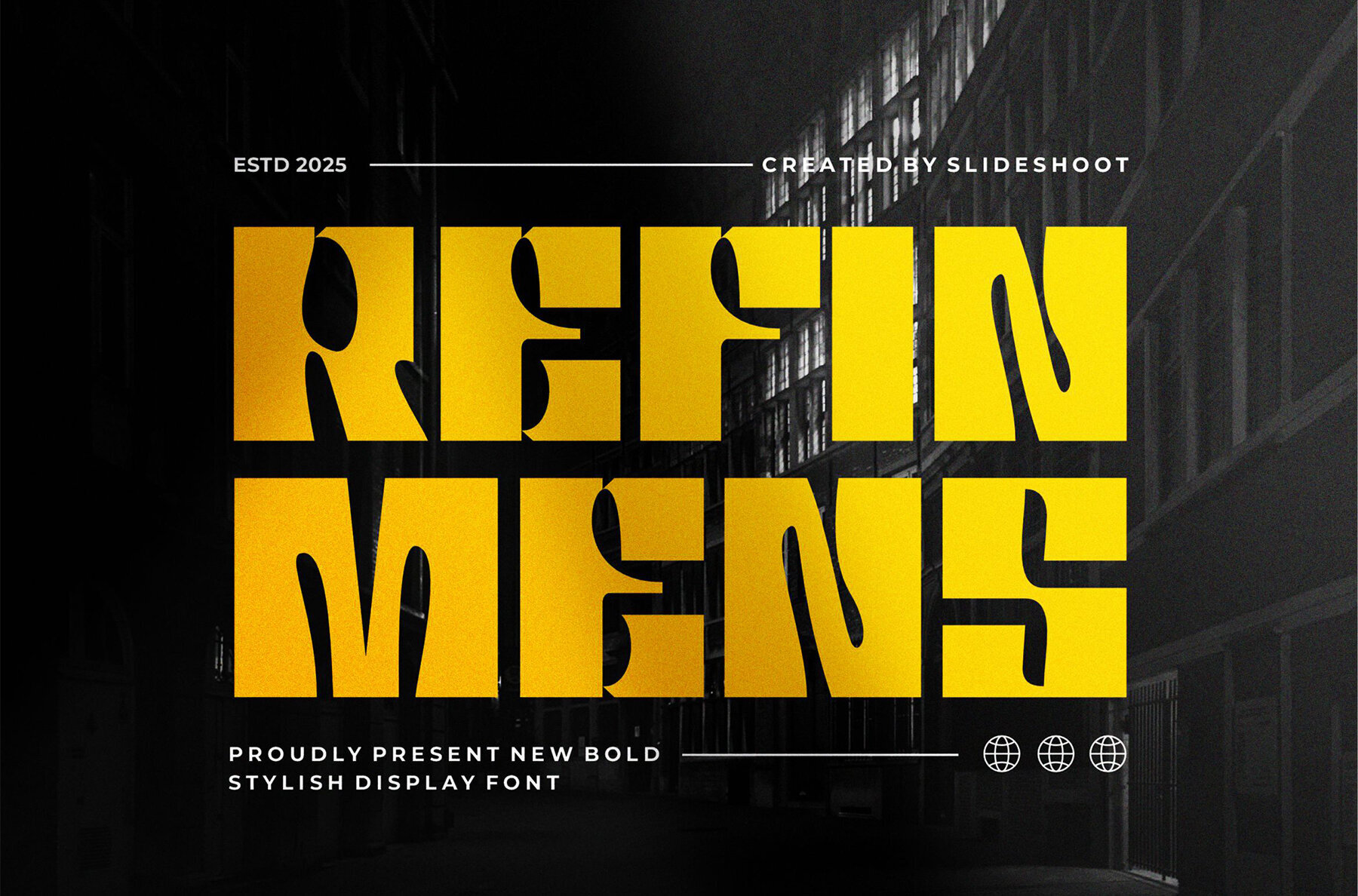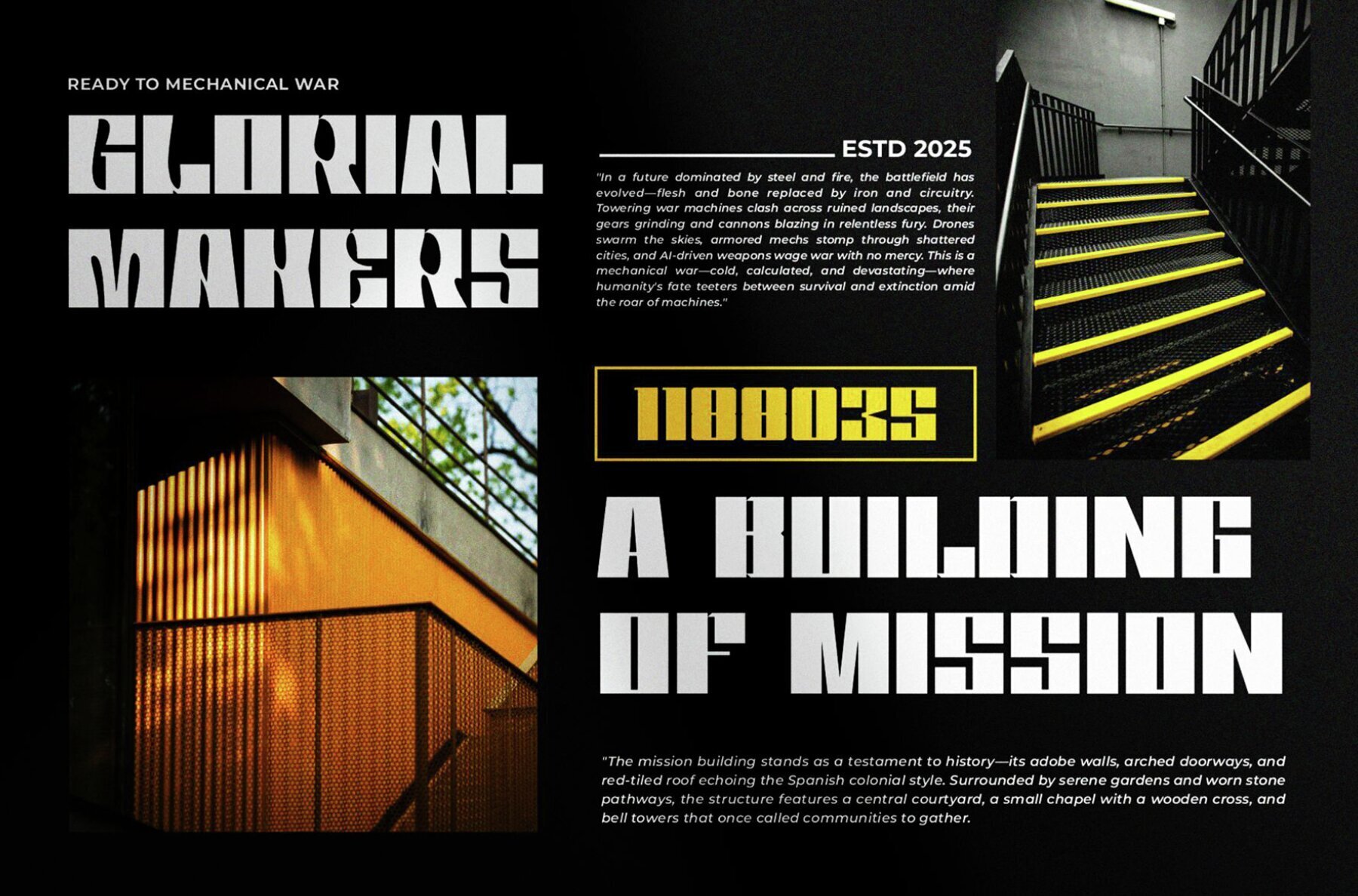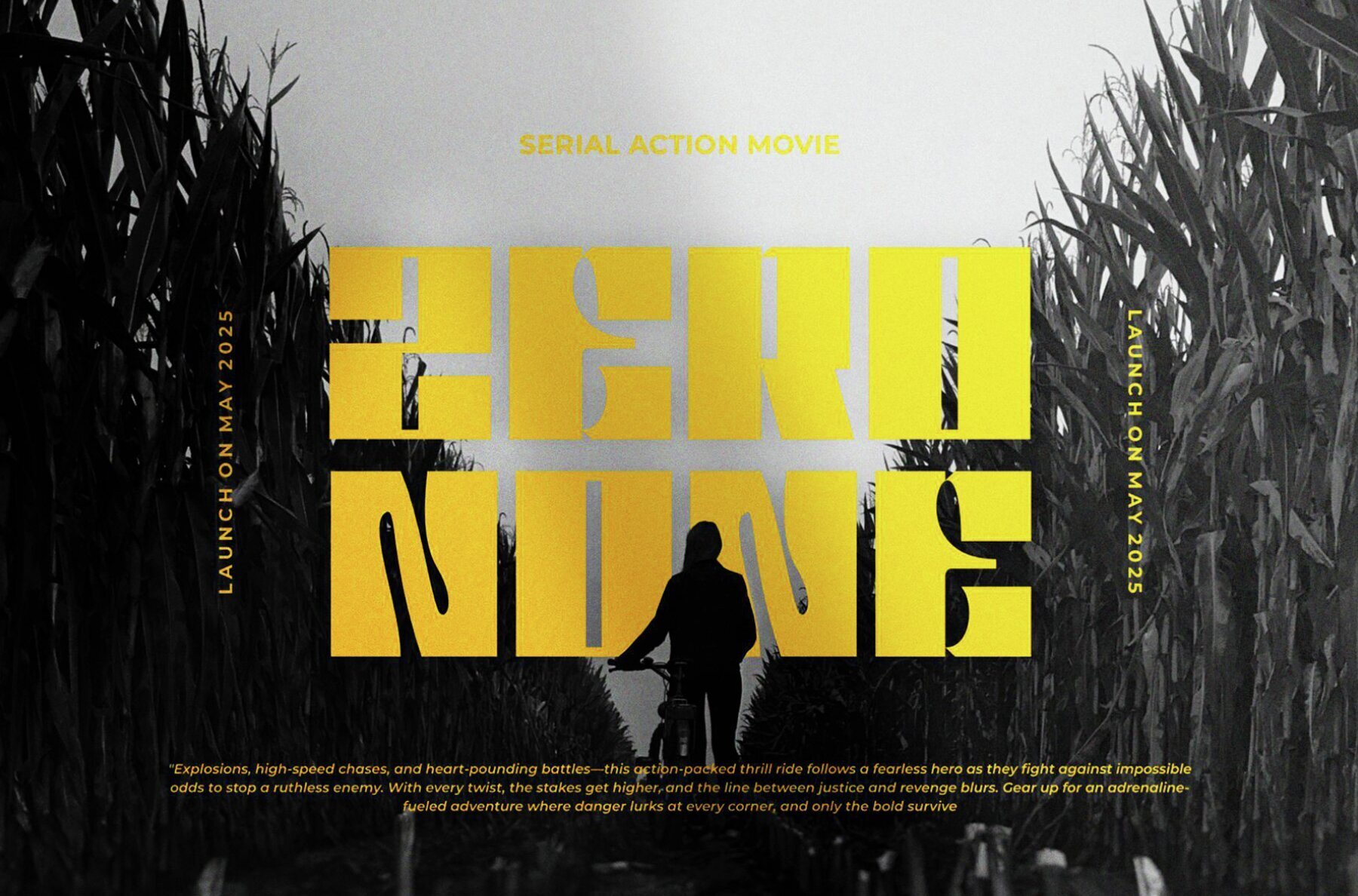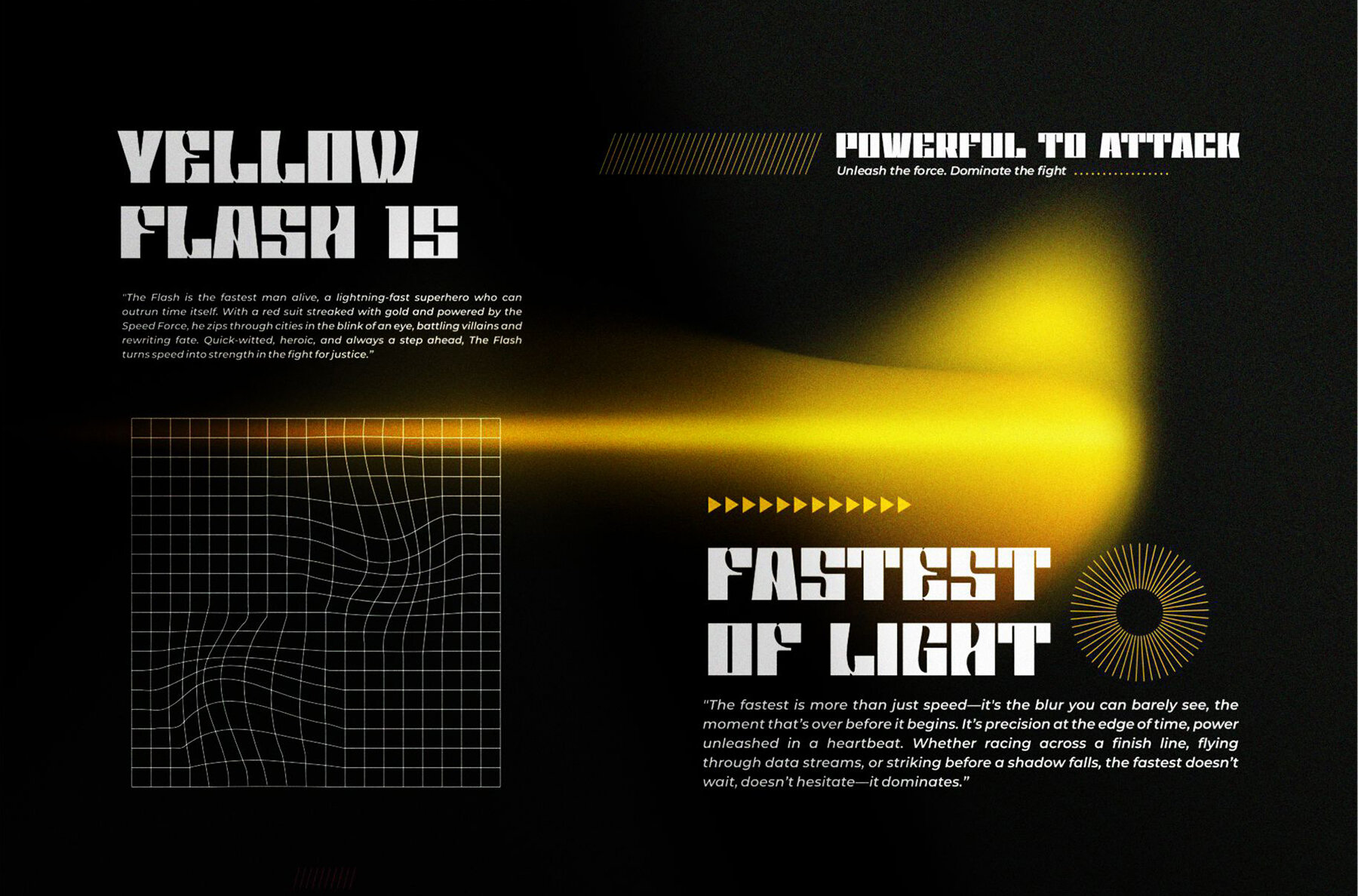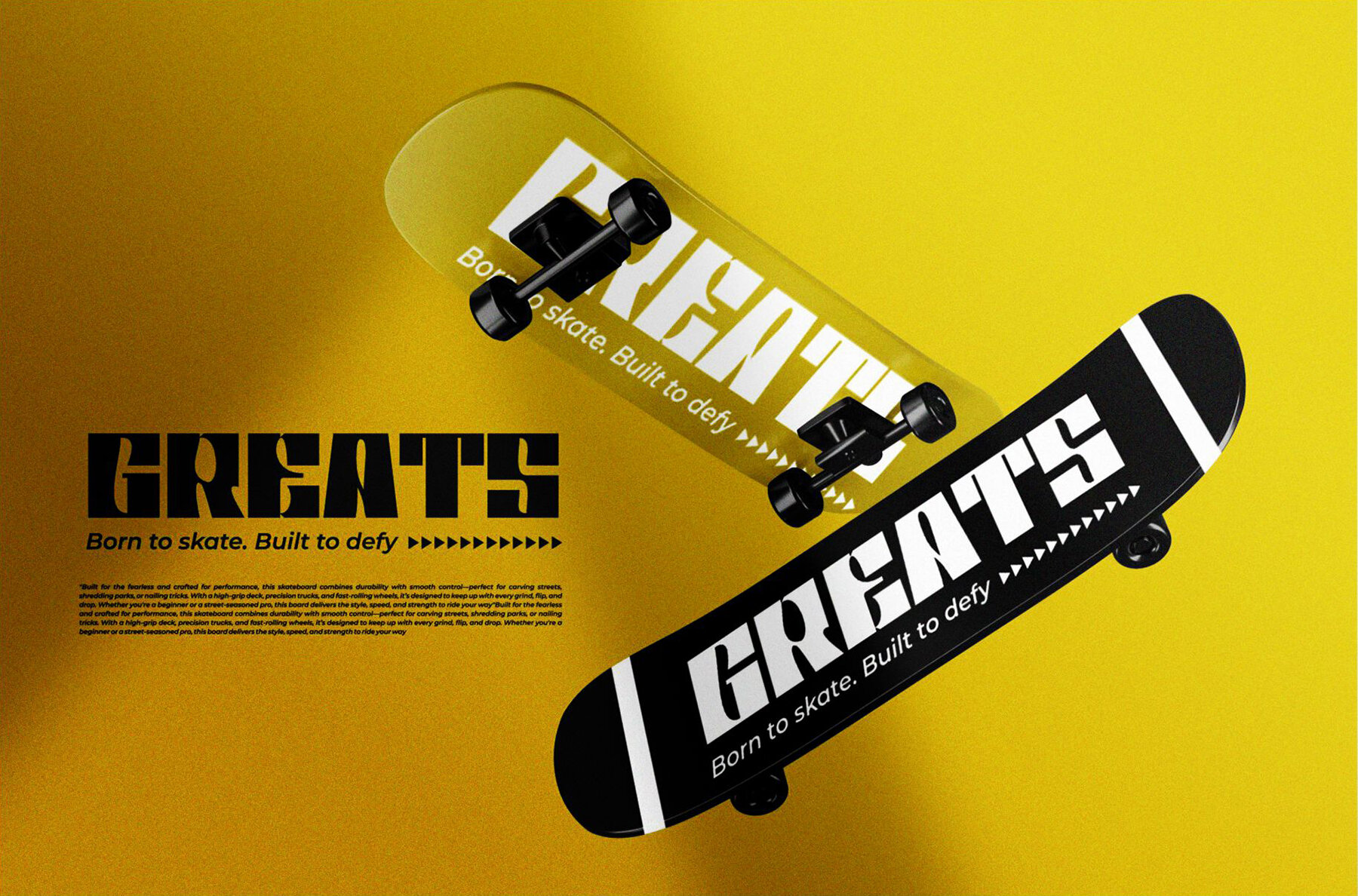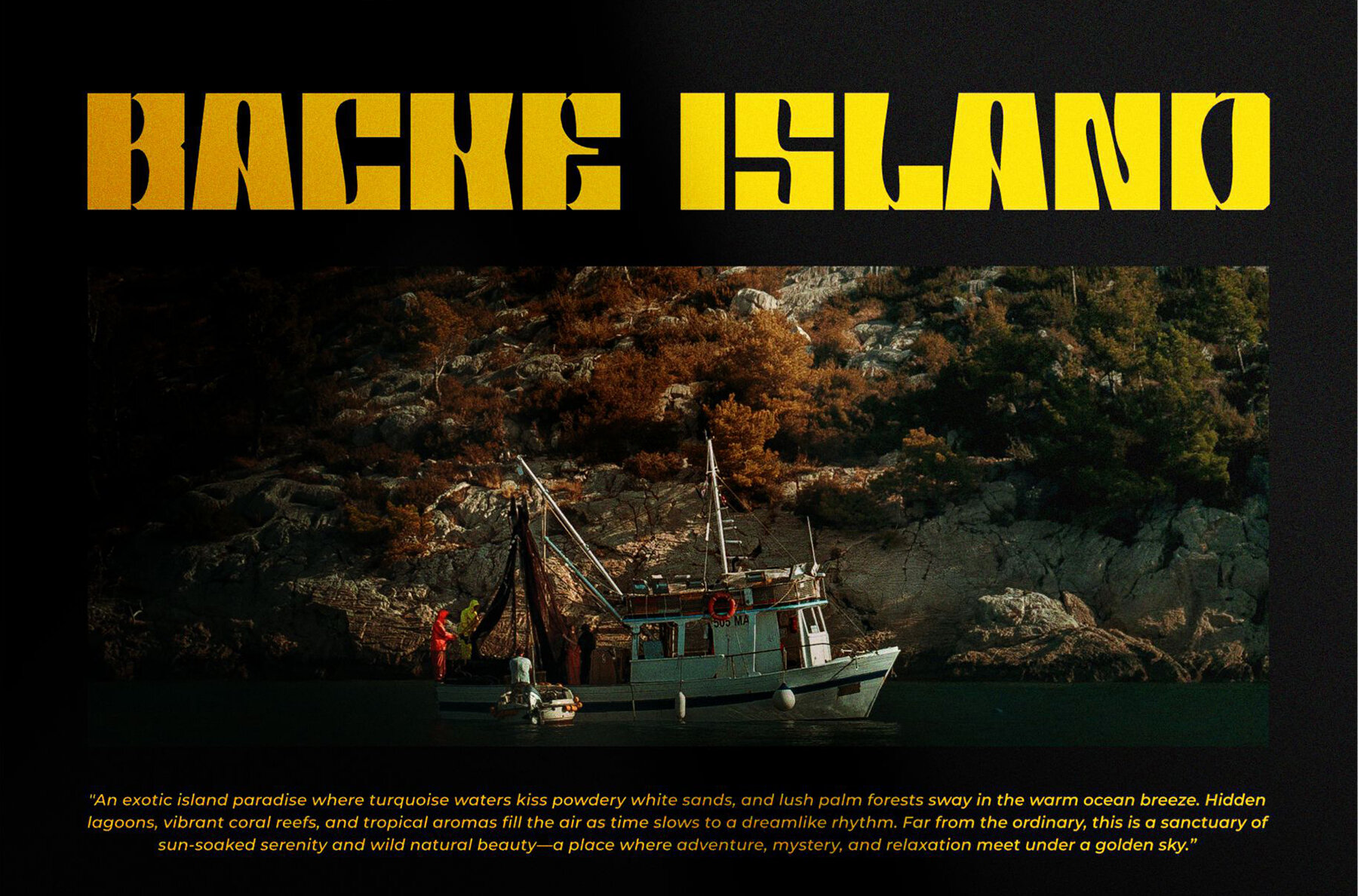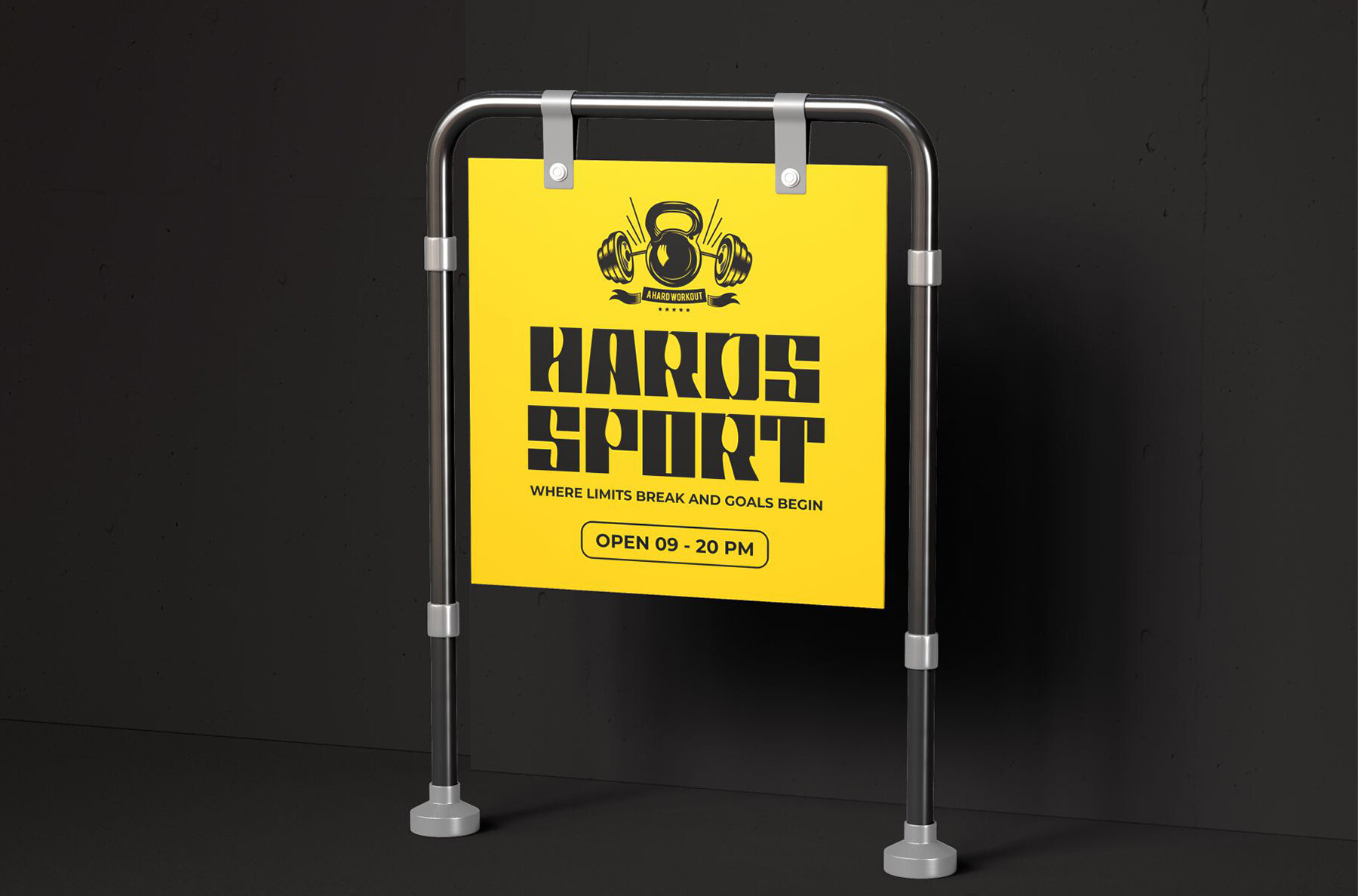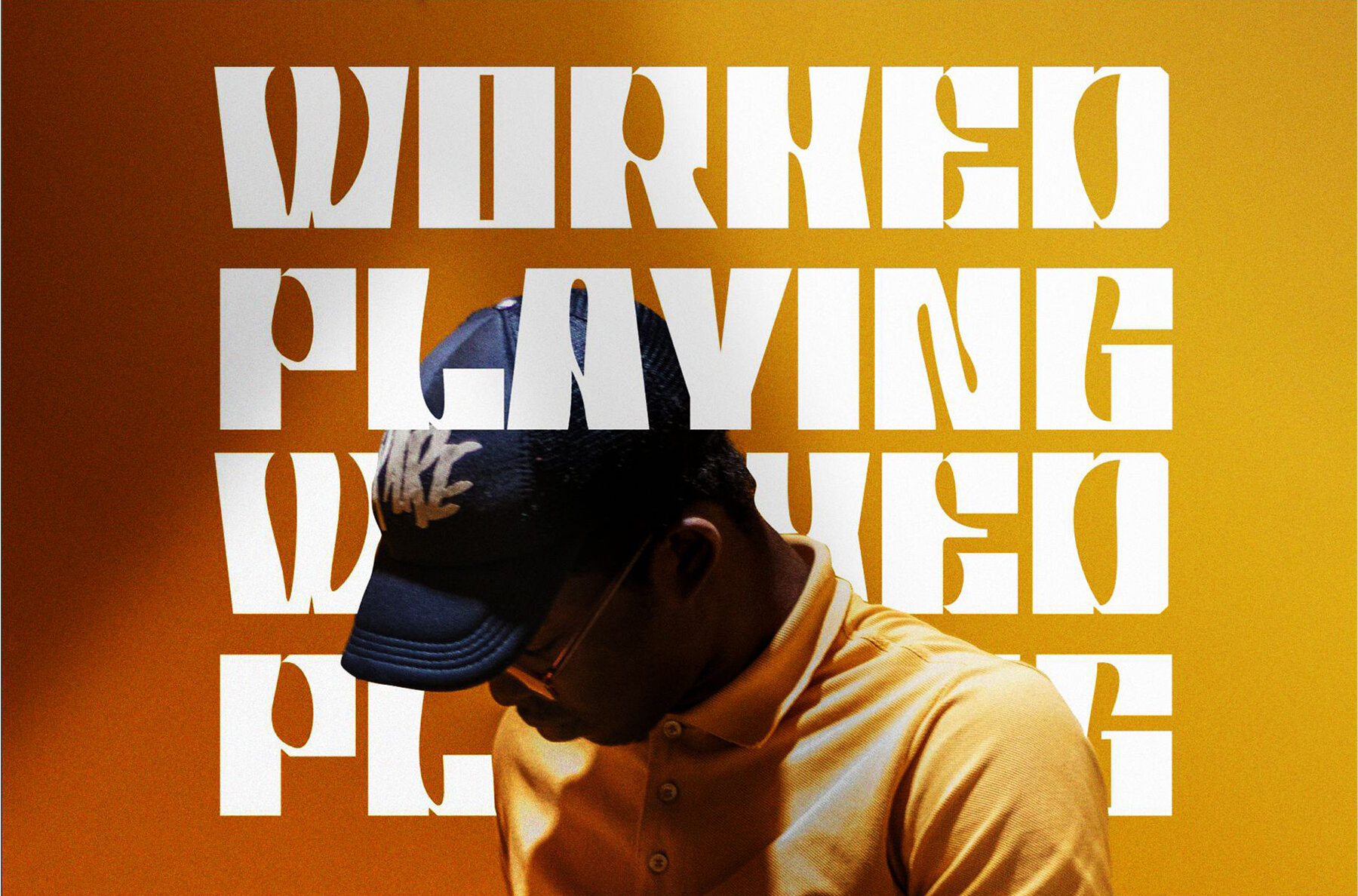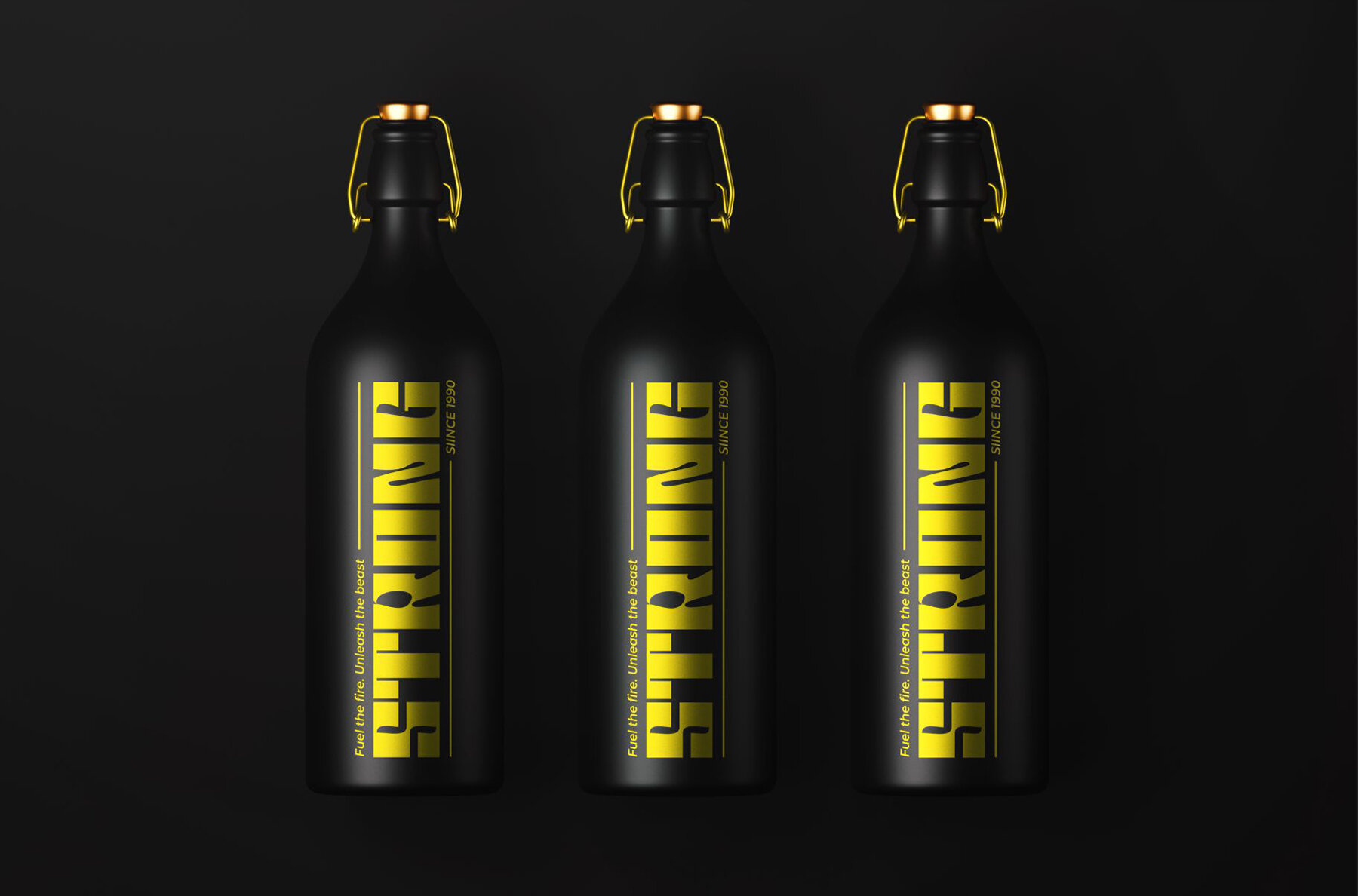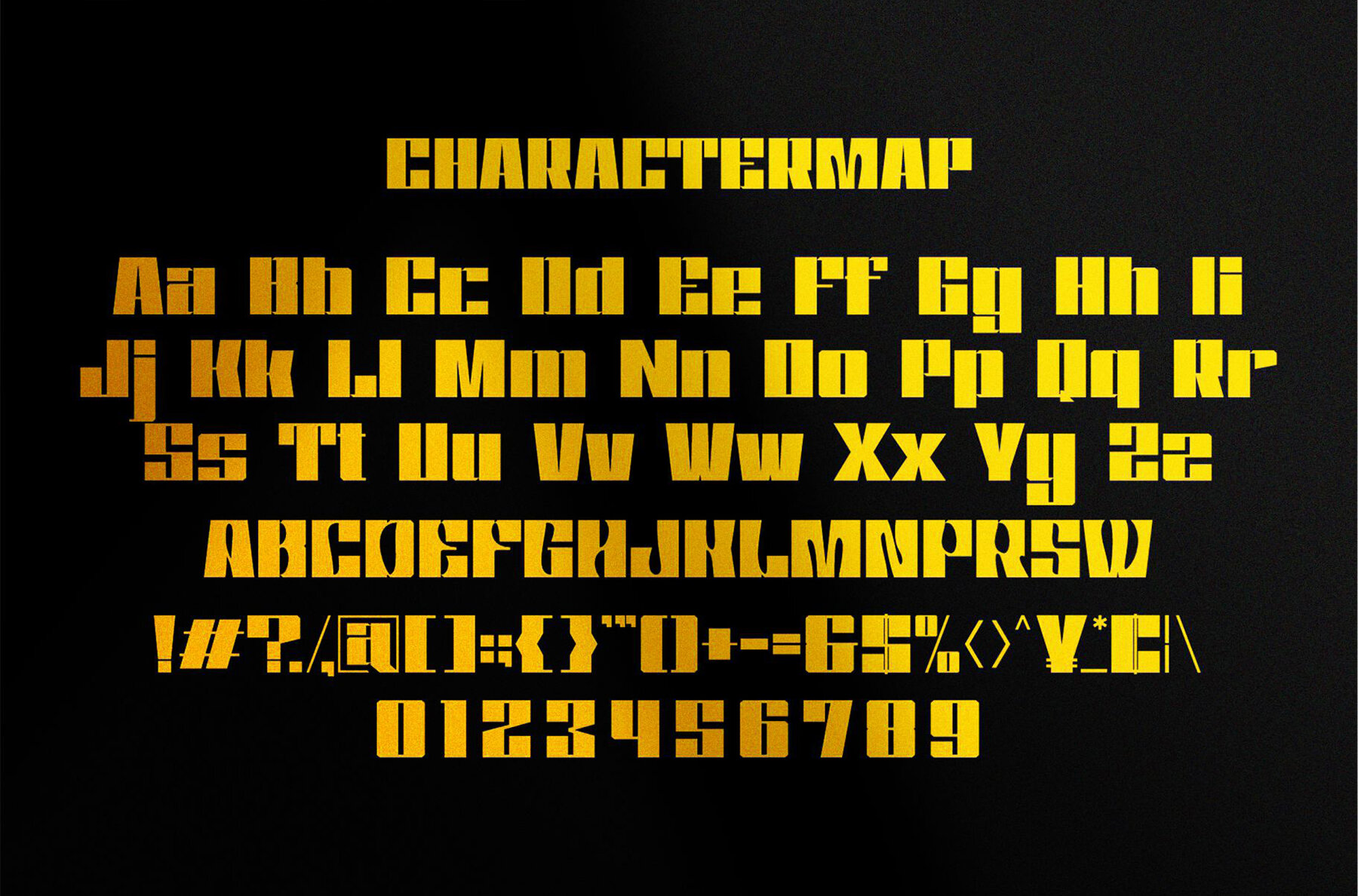
Refin Mens Font
Refin Mens
Meet Refin Mens, a bold and trendy sans serif font with a distinctive wood-themed character. This charming and modern display font is perfect for giving your design projects a touch of whimsy and flair. Whether you're working on invitation cards, company logos, movie titles, business cards, or book covers, Refin Mens brings a unique style to your designs.Refin Mens: Bold Sans Serif Font